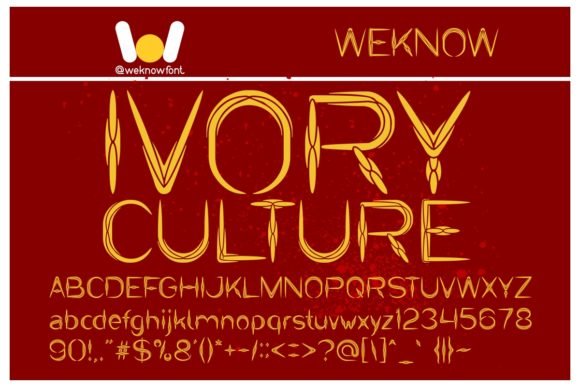
The Perfect Brushstroke for Your Next Creative Project
Have you ever found yourself staring at a blank canvas, trying to decide on the perfect font to bring your vision to life? We’ve all been there – the blank page staring back at us, taunting us to make a move. But what if you had the perfect tool at your fingertips? Enter the Ivory Culture Font, a stunning display font that’s about to become your new best friend.
This beautifully crafted font is the perfect addition to any branding, product packaging, invitation, or logo design. Its unique and interesting look makes it versatile enough to fit any creative project you can imagine. As a designer, you know how valuable it is to have a reliable font that can elevate your work and make it stand out from the crowd. The Ivory Culture Font is that game-changer, and we can’t wait to dive in and explore its many possibilities.
Ivory Culture Font Key Features
- Font Family: Ivory Culture Font is a sans-serif typeface designed to convey elegance and sophistication.
- Font Size: The font comes in multiple weights, ranging from Light (100) to Bold (700), allowing for versatility in typography.
- Unique Characteristics: The font features a unique blend of modern and traditional elements, with subtle rounded edges and refined lines, making it suitable for a wide range of applications.
- Language Support: The font supports a broad range of languages, including Latin, Cyrillic, and Greek scripts, making it an excellent choice for global branding and design projects.
Ivory Culture Font Review
Overall, I think the Ivory Culture font is a solid choice for designers looking to add a touch of elegance and sophistication to their projects. Here’s what I think works well:
- ✨ Unique blend of traditional and modern elements, making it perfect for projects that require a classic yet contemporary feel.
- ✨ Excellent legibility, even at small font sizes, making it suitable for a wide range of applications, from body text to headings.
- ✨ Wide language support, including Cyrillic and Asian scripts, making it a great choice for global brands and projects.
- ⚠️ Limited customizability options, which may not be ideal for designers who want to fine-tune the font to their exact specifications.
- ⚠️ Some users may find the font too formal or stodgy, depending on the project’s tone and style.
Overall, I think the Ivory Culture font is a great choice for designers who want a high-quality, professional font that exudes elegance and sophistication. While it may not be the most versatile font on the market, it’s definitely worth considering for projects that require a classic, timeless feel.
Getting the Most Out of Ivory Culture Font
For optimal results, use the Ivory Culture Font in combination with a clean and minimalist design aesthetic.
Experiment with different font sizes and styles to create visual interest and hierarchy in your design.
The Ivory Culture Font is ideal for:
- Brand identity and logo design
Alternatives to Ivory Culture Font
Creamer
Creamer is a sans-serif font that is similar to Ivory Culture Font in terms of its clean and elegant appearance. However, it has a slightly more modern feel and is ideal for use in digital products, such as websites and mobile apps.
Comparison: Creamer is more modern and digital-friendly compared to Ivory Culture Font, which has a more classic and timeless feel.
Playfair Display is an elegant serif font that is perfect for use in luxury branding and high-end design projects. It has a more formal and sophisticated feel compared to Ivory Culture Font, which makes it ideal for use in wedding invitations, luxury products, and other high-end applications.
Comparison: Playfair Display is more formal and sophisticated compared to Ivory Culture Font, which has a more casual and approachable feel.
Montserrat is a sans-serif font that is similar to Ivory Culture Font in terms of its clean and modern appearance. However, it has a more geometric feel and is ideal for use in urban and modern design projects, such as city guides and fashion magazines.
Comparison: Montserrat is more geometric and modern compared to Ivory Culture Font, which has a more classic and timeless feel.